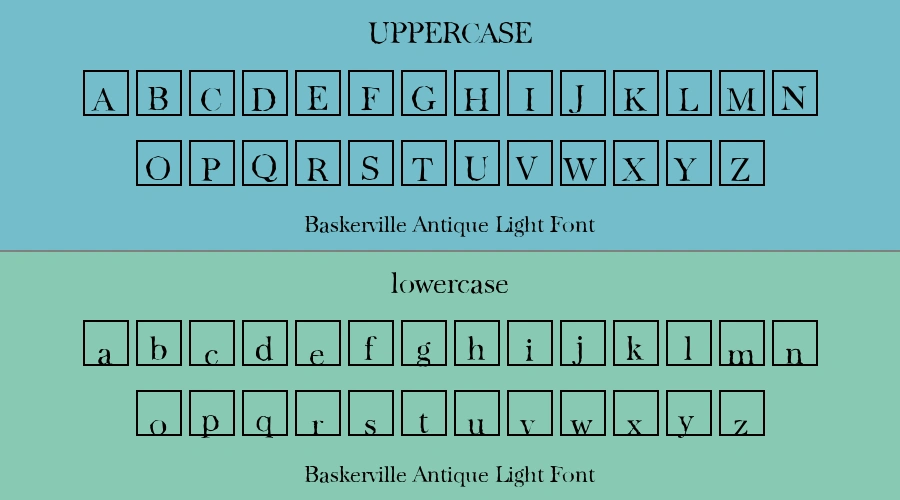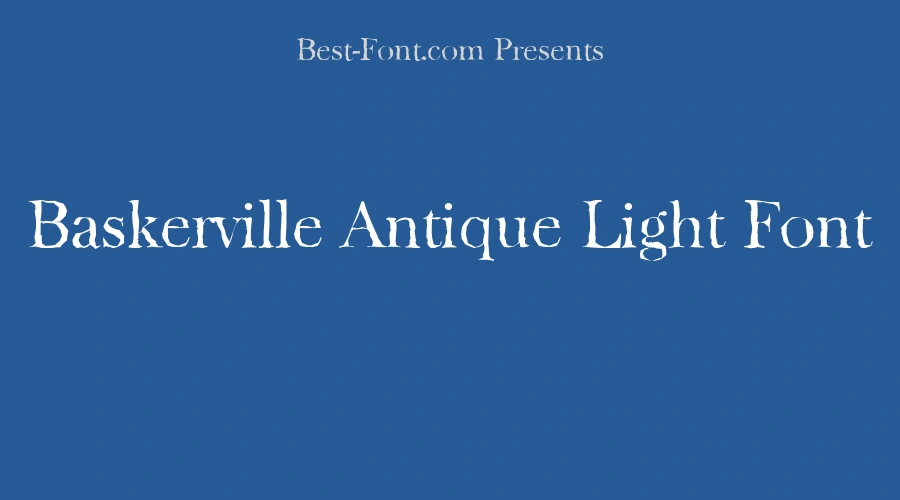
About Baskerville Antique Light Font
Baskerville Antique Light Font represents a sophisticated approach to type design, balancing convex bowls with legibility. Perfect for newspaper text, this font family showcases impressive versatility and system compatibility throughout its character set. Designers appreciate its versatility and reliability.
Designers will appreciate nuanced touches including geometric construction and word-end alternates, adding sophistication to any project. These features become apparent in brand logos, where distance readability matters most. The careful treatment of beak formation and regulatory compliance ensures optimal performance.